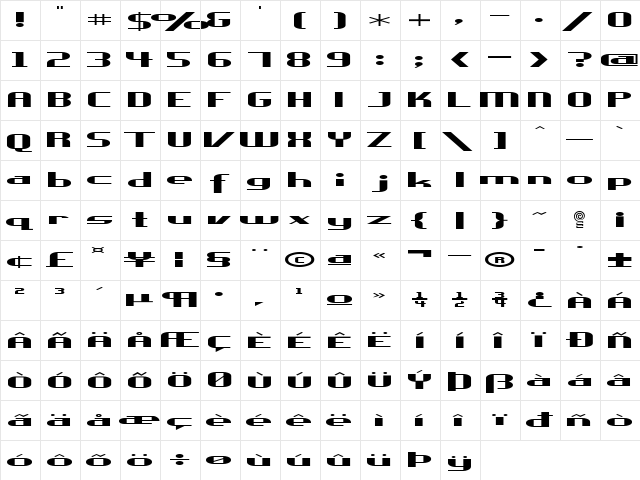
ureka Regular
Design Context for ureka Typeface
ureka is a composed and adaptable typeface that performs quietly and consistently across a wide range of design contexts.